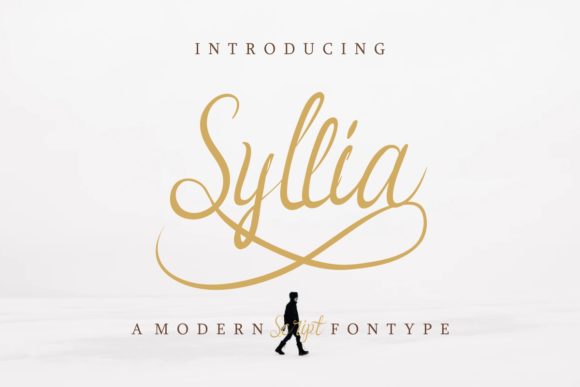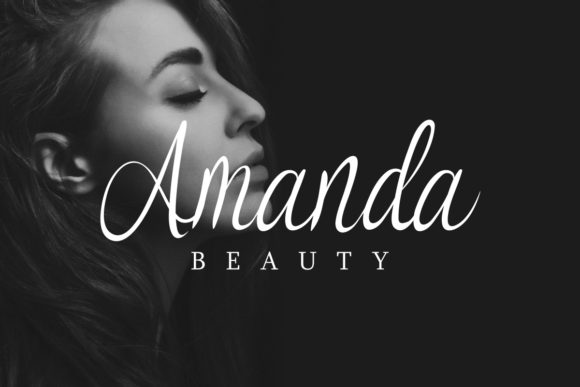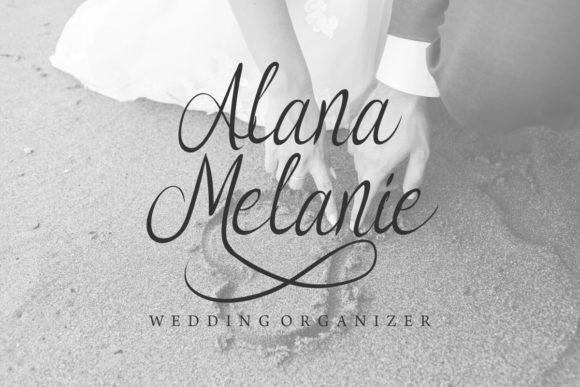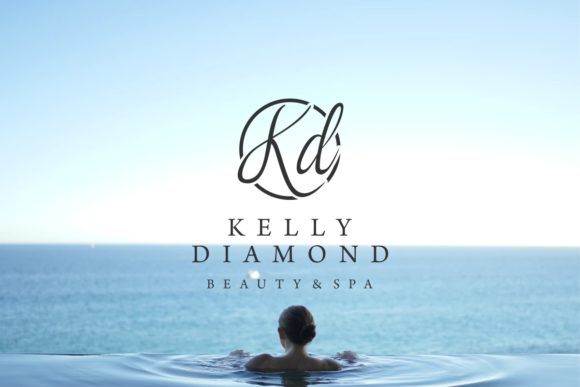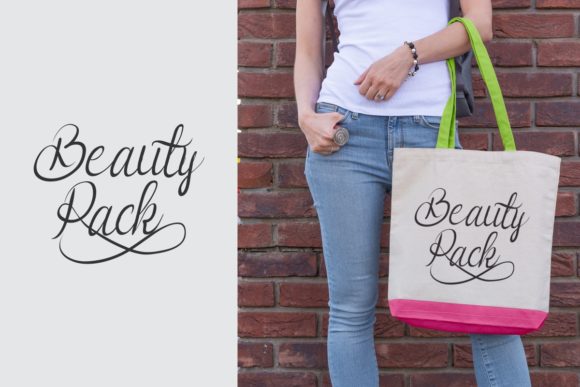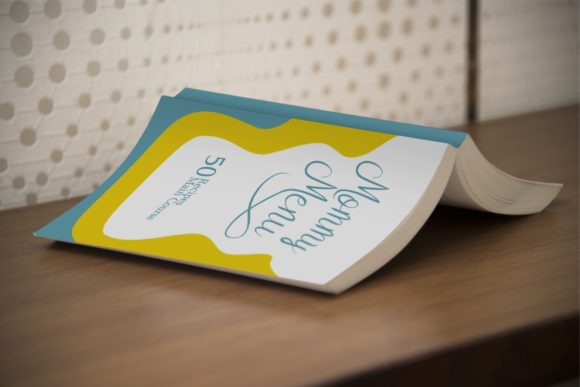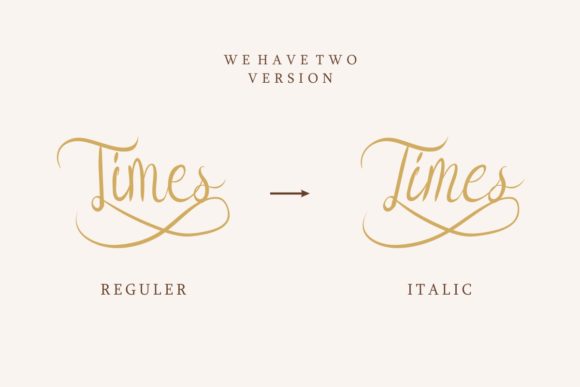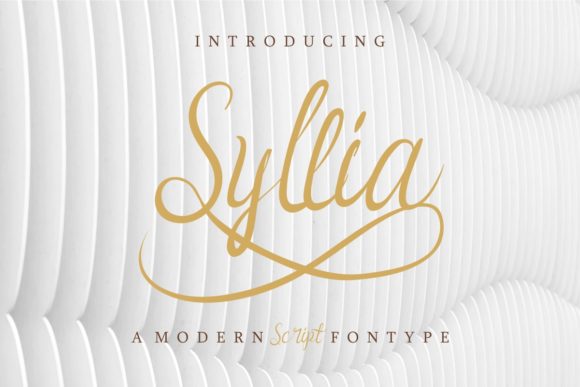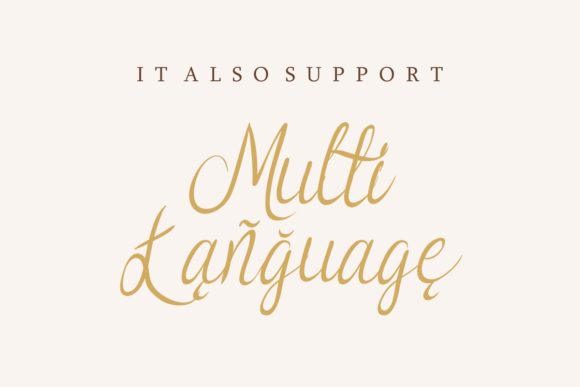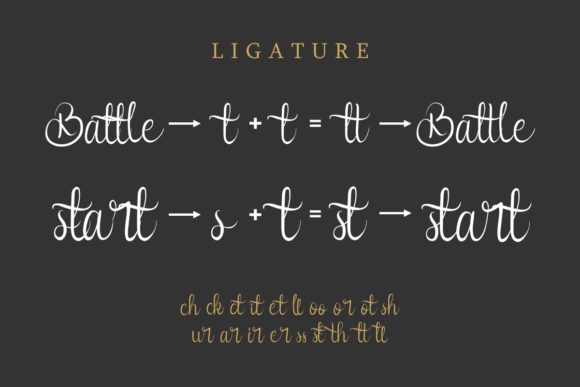
HomeScript FontsSyllia Font Script Fonts Syllia Font FacebookXPinterestWhatsApp Syllia Font Poster 2 Syllia Font Poster 3 Syllia Font Poster 4 Syllia Font Poster 5 Syllia Font Poster 6 Syllia Font Poster 7 Syllia Font Poster 8 Syllia Font Poster 9 Syllia Font Poster 10 Syllia Font Poster 11 Syllia Font Poster 12 Syllia Font Poster 13 Syllia Font Poster 14 Syllia Font Poster 15 About Syllia Font Syllia is a bold and charming script full of energy. Fall in love with its charming swashes! DOWNLOAD ON CREATIVE FABRICAThis font is sold and delivered by Creative Fabrica. Font Canyon may earn a commission if you buy through this link. People also explored Playlist Font Drenched Roses Font Laggran Font Blastter Font Scuper Font Sauronking Font YWFT HLLVTKA Round Sallynda Script Font Line Arrow Font 349 0 TagsSyllia Font Previous articleKeraton FontNext articlePurple Grande Font LEAVE A REPLY Cancel reply Comment: Please enter your comment! Name:* Please enter your name here Email:* You have entered an incorrect email address! Please enter your email address here Website: Save my name, email, and website in this browser for the next time I comment. Personal Use Free Zojihun Personal Use Free Read more about this font Fifteenth Century Personal Use Free Read more about this font Stone Cold Personal Use Free Read more about this font Maharany Personal Use Free Read more about this font BLOG Fonts That Capture the Spirit of New York City New York City is more than just a place—it’s an experience, a rhythm, a visual language... To increase your work productivity, choose the most readable fonts. Elegant Wedding Invitation Fonts – Handwritten & Script Fonts Best Fonts for T-Shirt Design – Top 2025 Picks